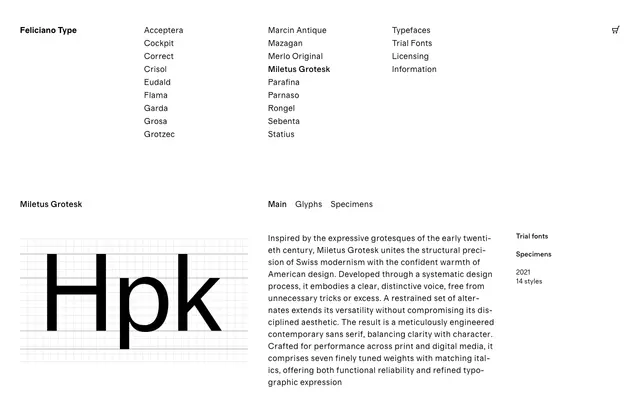
Miletus Grotesk
Feliciano Type · 2021
A contemporary grotesque in seven weights with matching italics, drawing on early twentieth-century expressive models and Swiss modernist structure.
Seven weights from Light to Black, each with a matching italic, give the family fourteen styles in total. The design blends the disciplined geometry of Swiss modernism with the warmth associated with American grotesques, kept in check by a restrained alternate character set. Positioned for performance across print and digital contexts, it aims for functional reliability without sacrificing typographic personality.
Explicitly inspired by early twentieth-century expressive grotesques and Swiss modernist structural precision, placing it firmly in the grotesque tradition of sans-serif design.